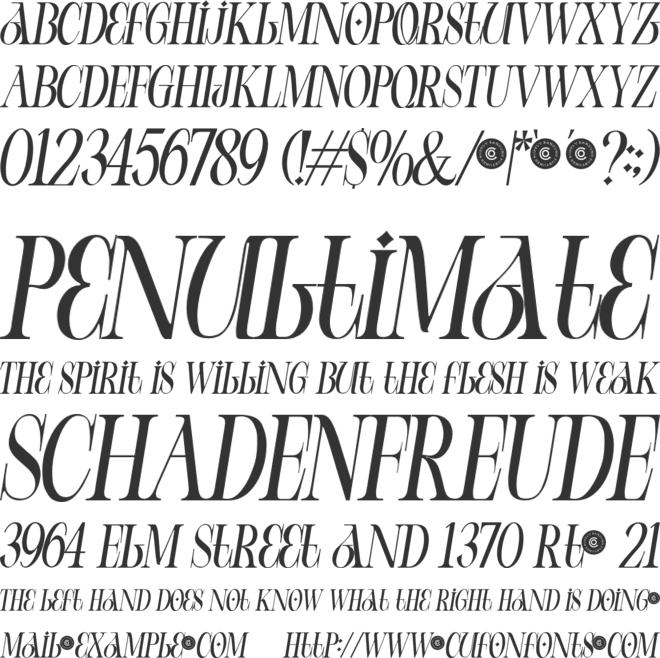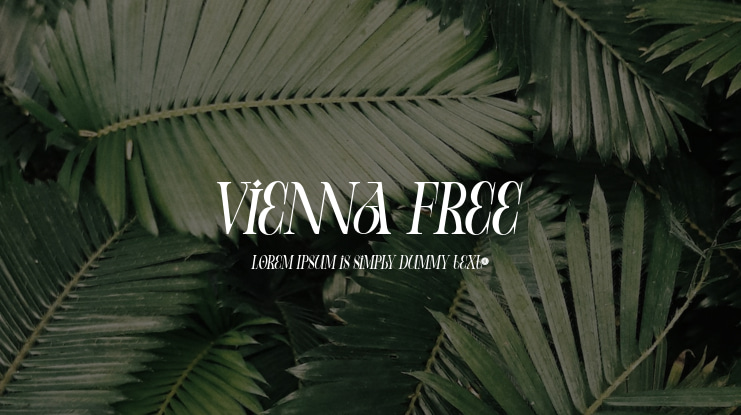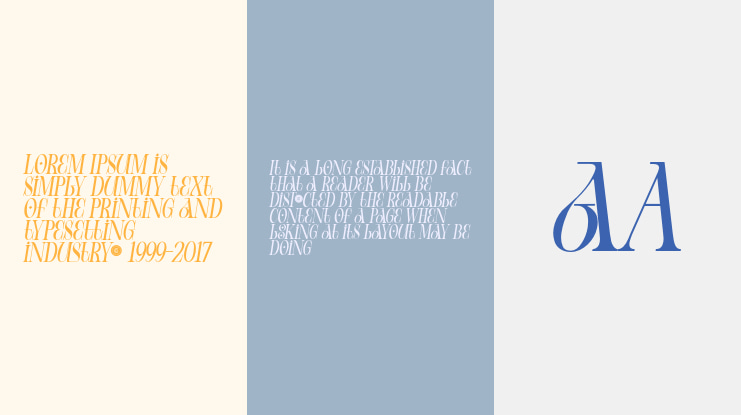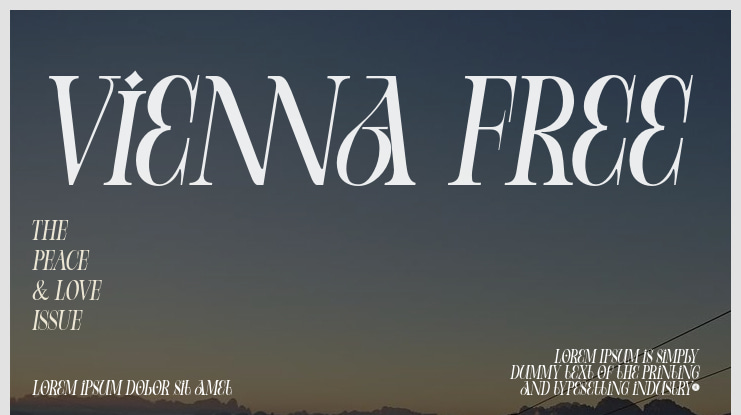
Vienna Free Font
Vienna is Modern Serif is a font style that blends traditional and modern design elements to create a distinct, stylish look. This typeface is characterized by serifs, or small lines added to the end of a stroke, that give it a classic and sophisticated feel.
The font is often used in high-end fashion magazines and advertisements to evoke a sense of luxury and elegance. Fashion serif typeface is versatile and can be used for various purposes, from headings and titles to body text. Overall, this typeface is a perfect choice for designers looking to create a high-end, fashionable aesthetic.